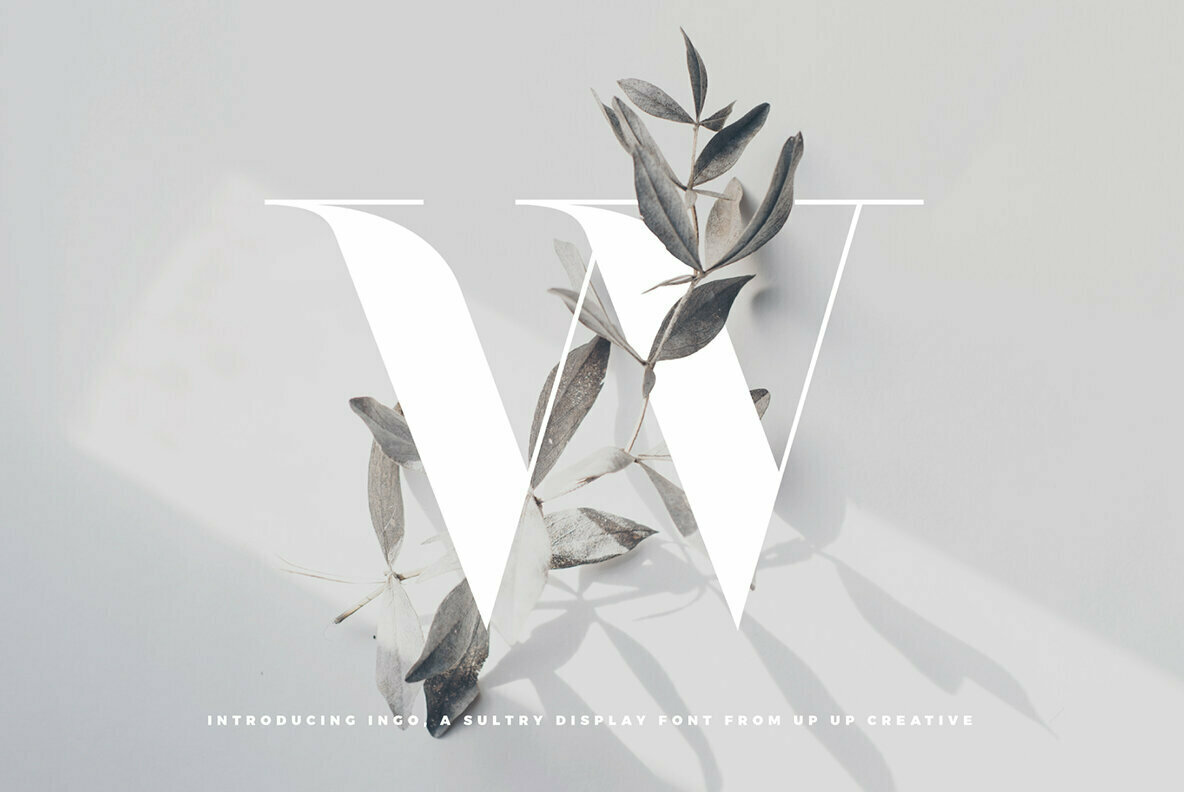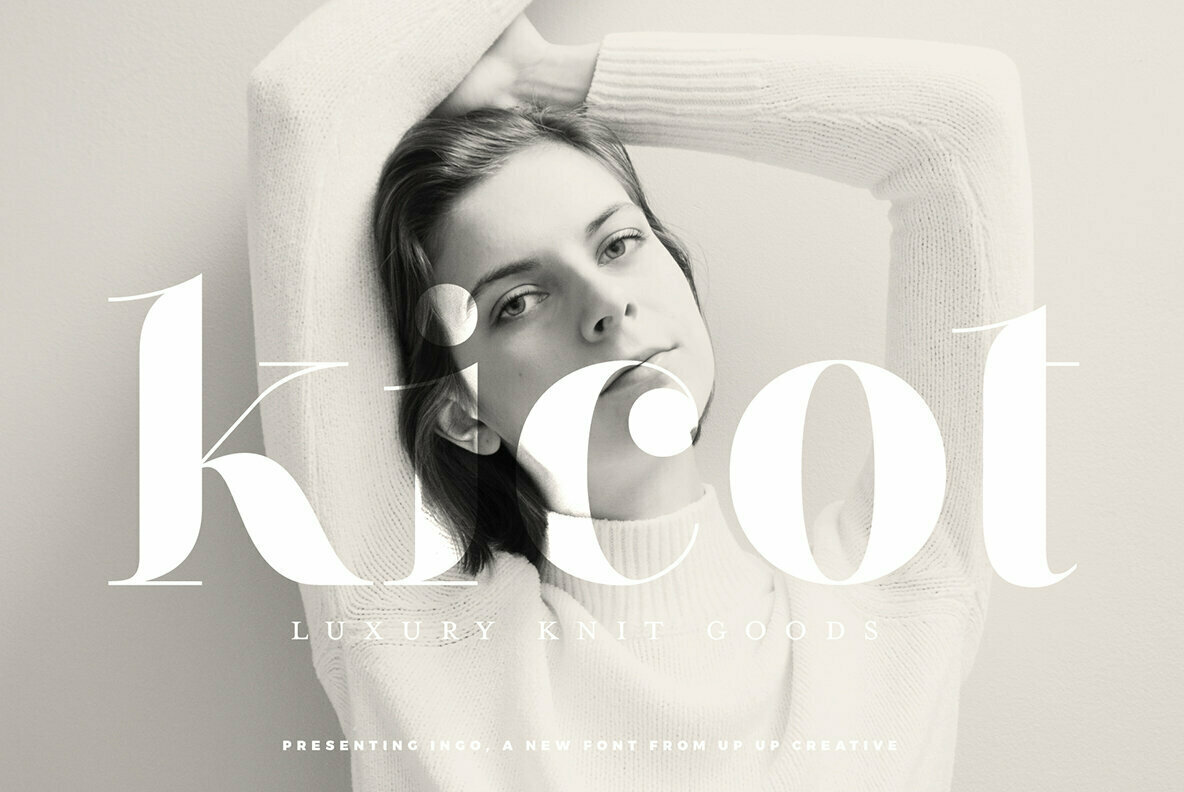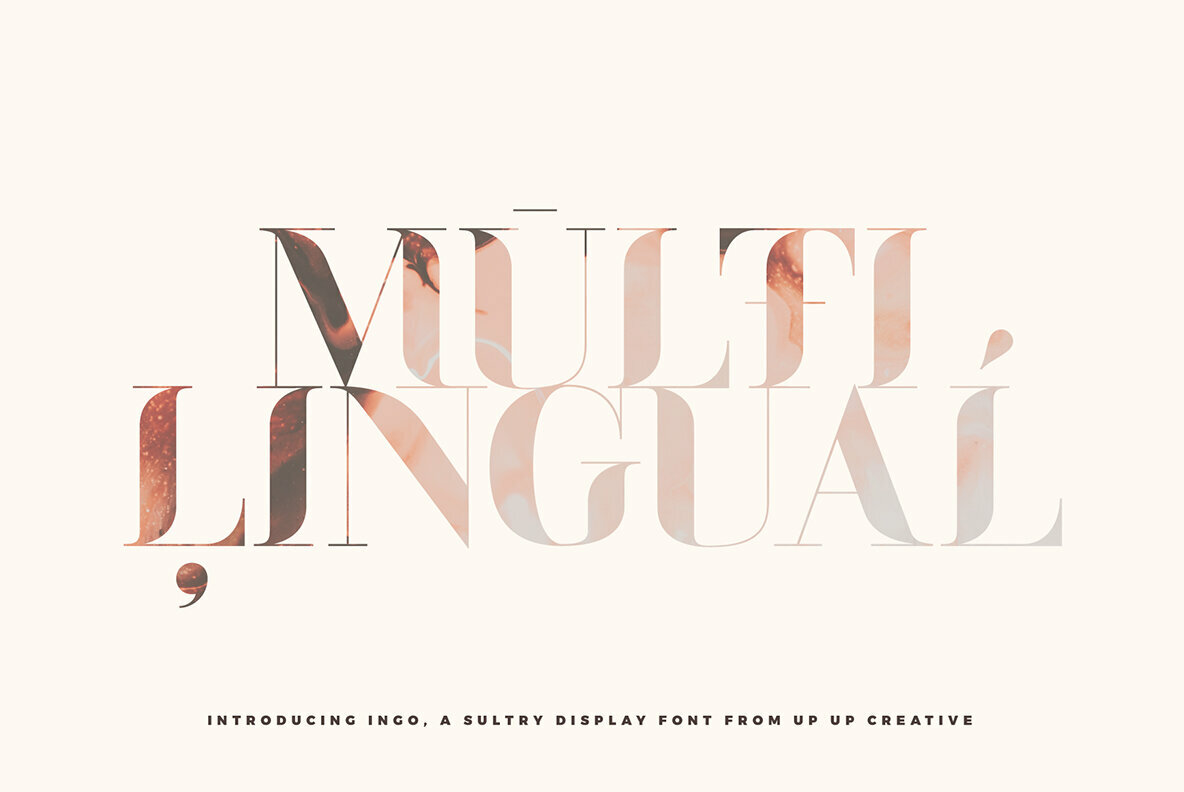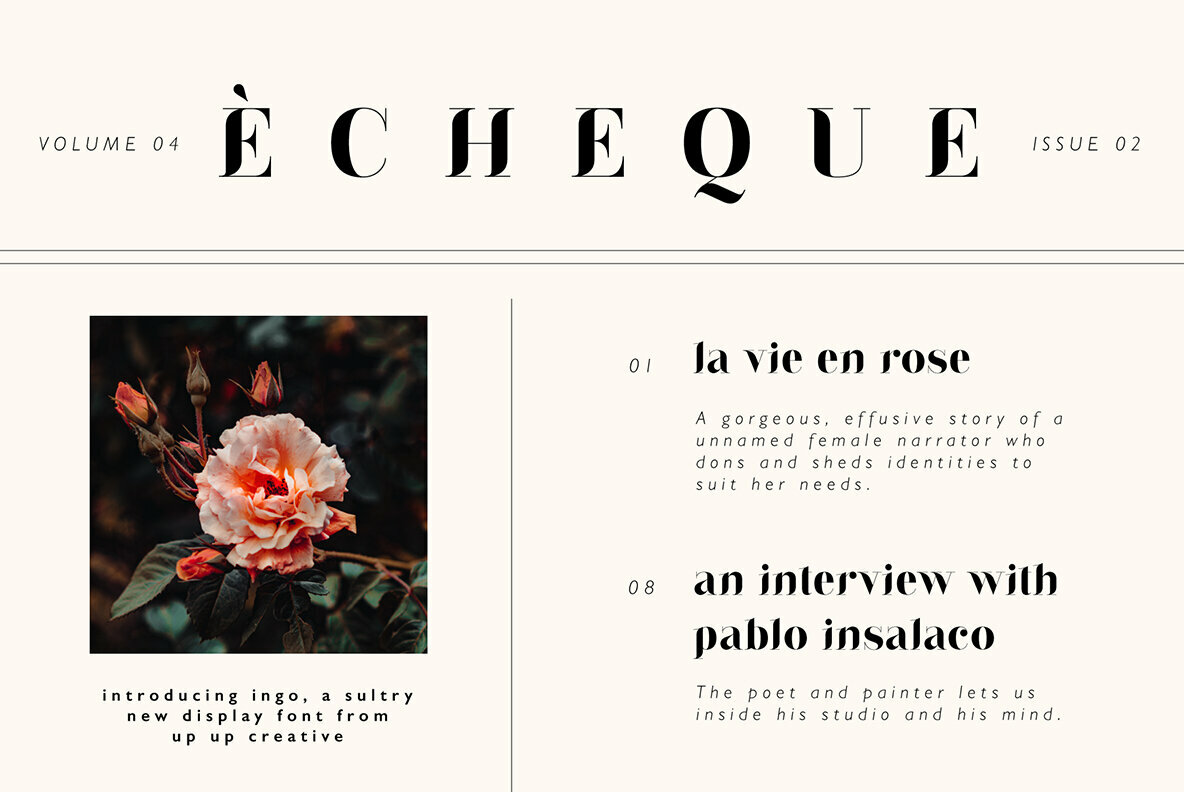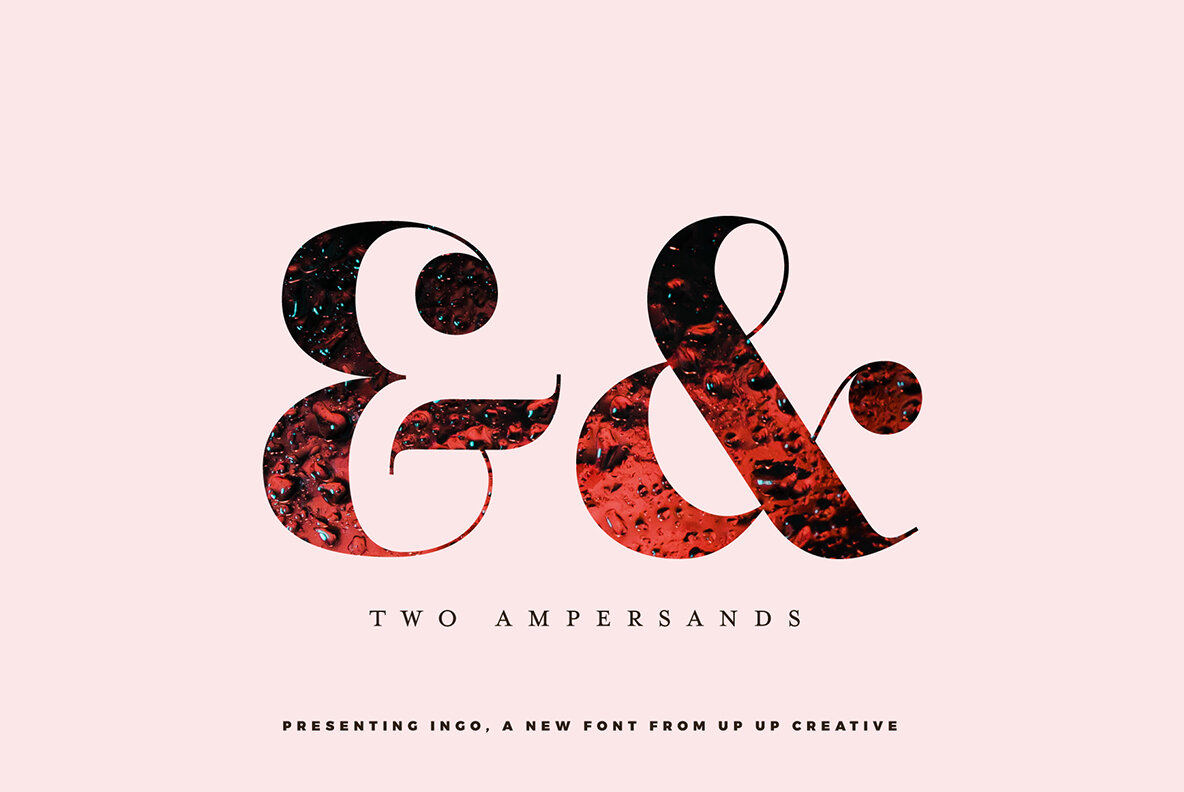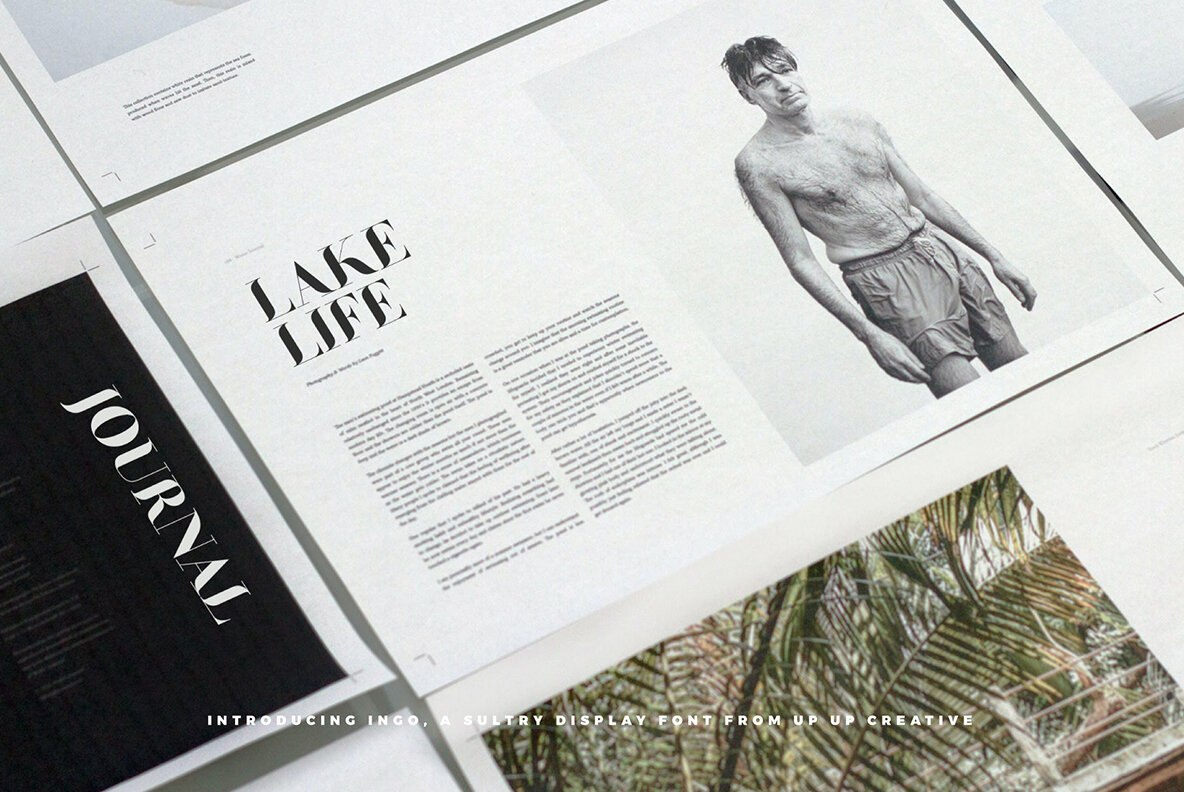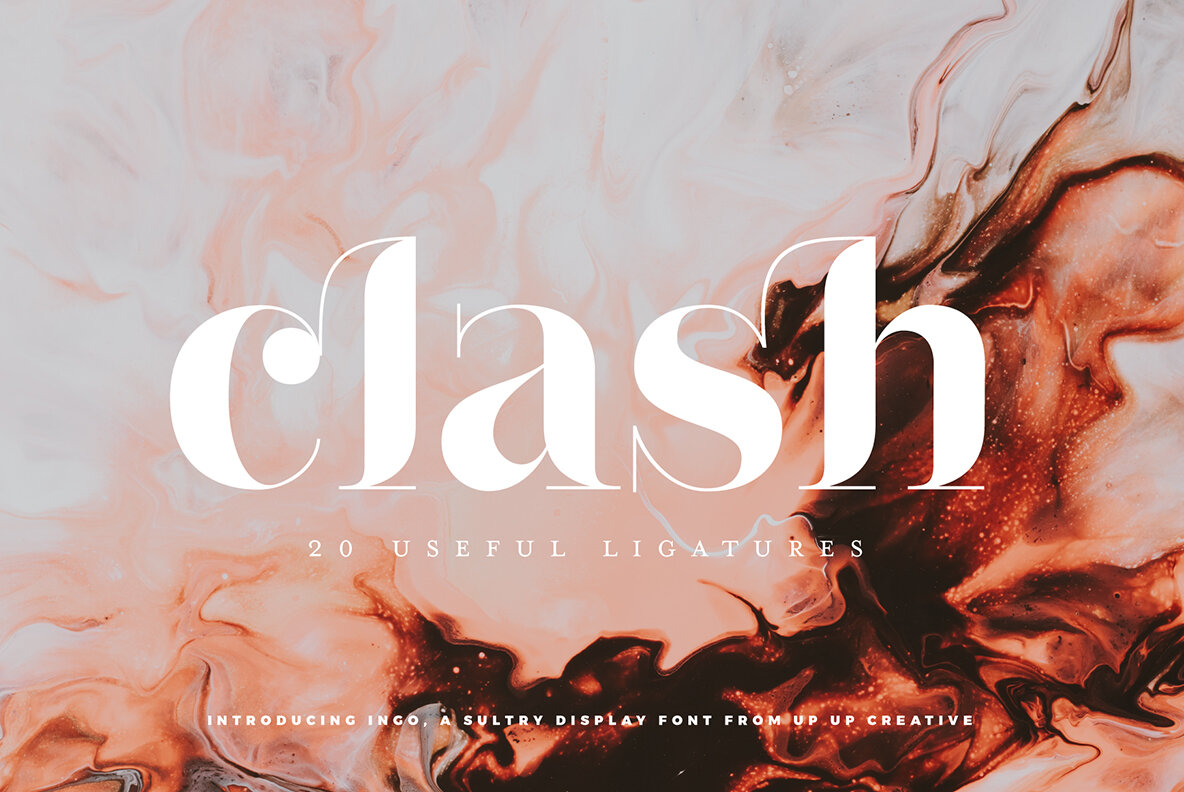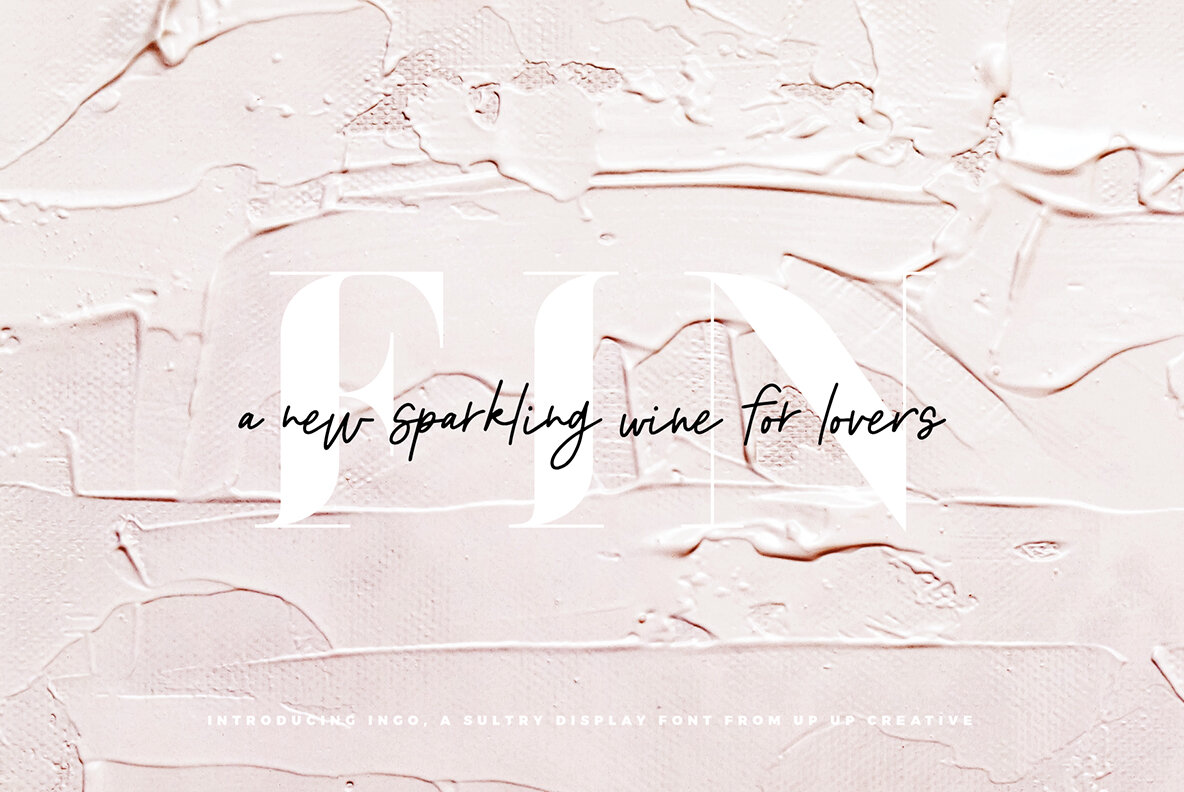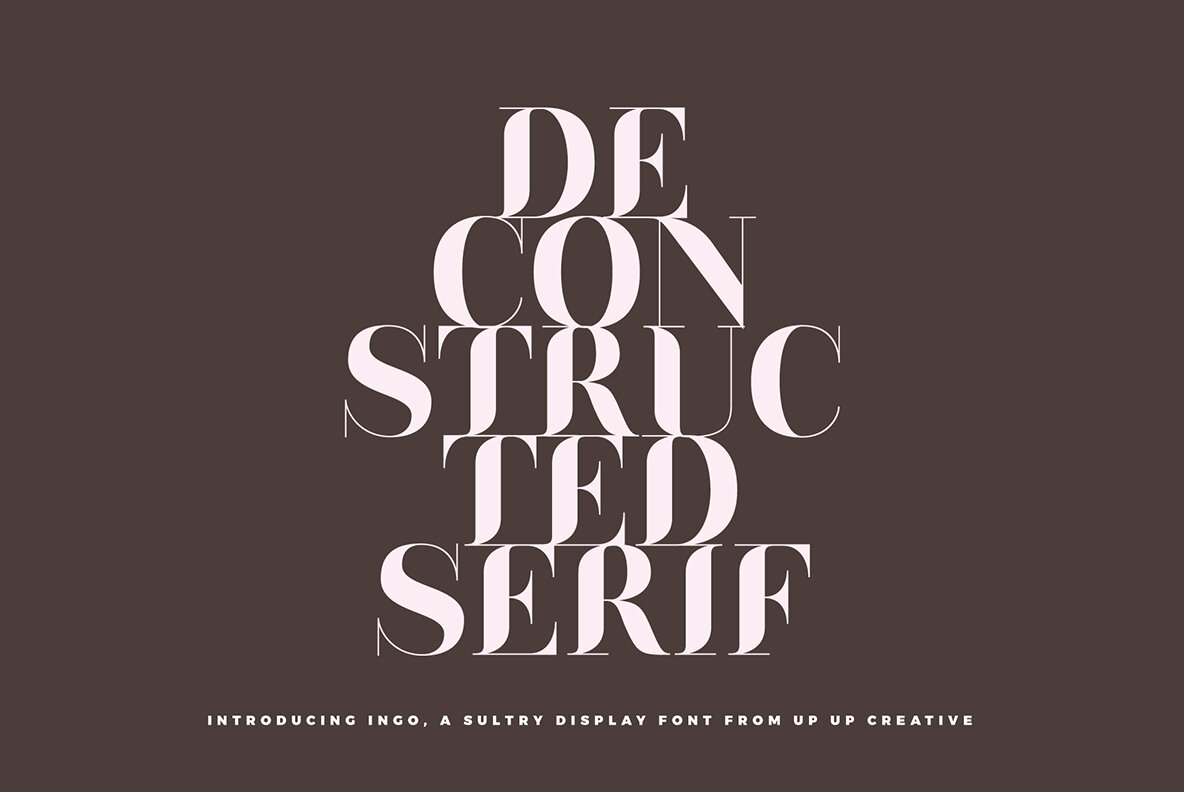
Ingo Font
Ingo Regular
Introducing Ingo, a sultry, modern display font with with high contrast and bold curves. Its “deconstructed serif” style gives it a chic, curvaceous look that is a bit experimental and still highly readable. Ingo is perfect for headlines, editorial design, monograms, branding, logos, poster design, and more.
Ingo includes approximately 440 glyphs and 20 standard and discretionary ligatures. OpenType features include character variants, ligatures, and multilingual support (including multiple currency symbols).